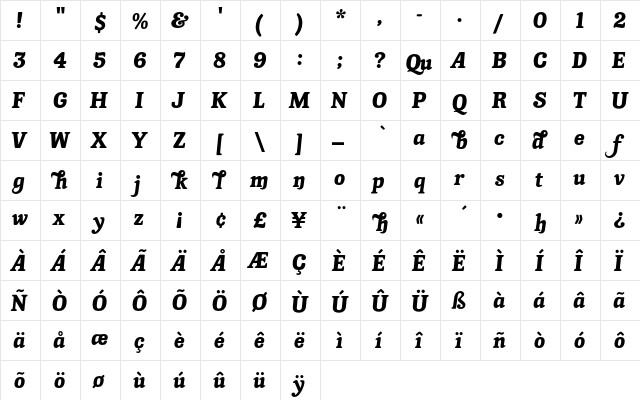
KnightsbridgeEF-Alternate Regular Font Preview
KnightsbridgeEF-Alternate Regular
Design Context for KnightsbridgeEF-Alternate Typeface
KnightsbridgeEF-Alternate takes a measured approach to typography — its balanced proportions and neutral character make it a reliable workhorse for both digital and print work.